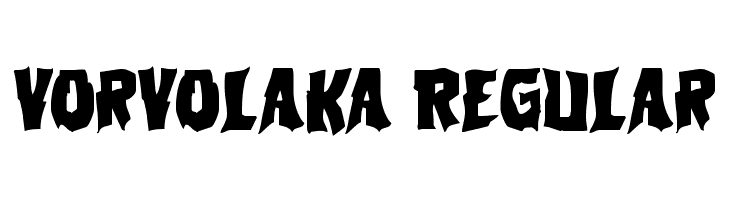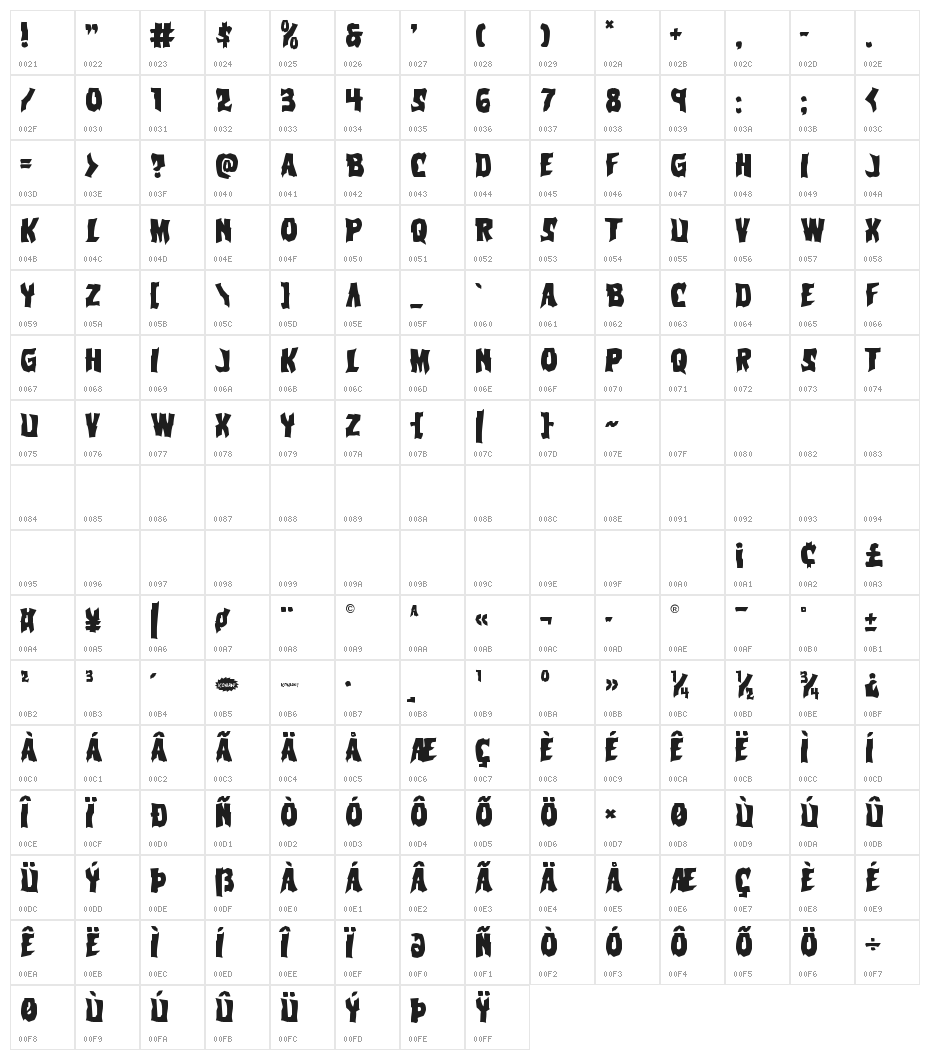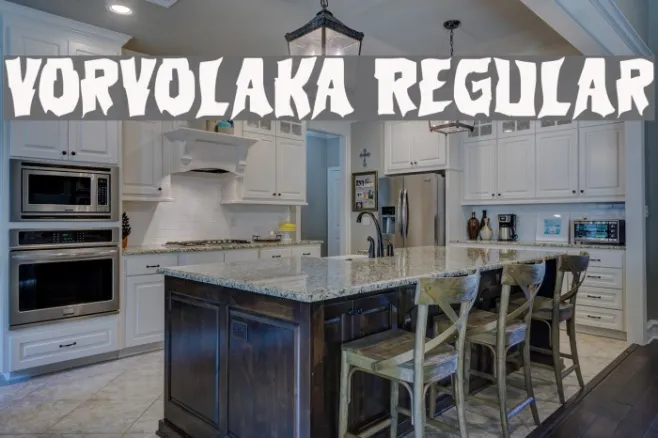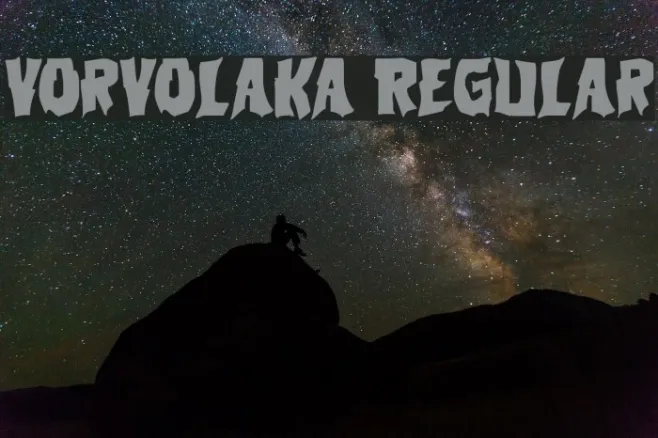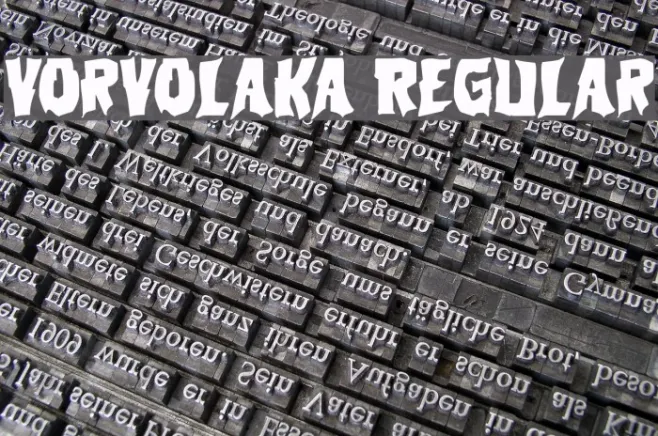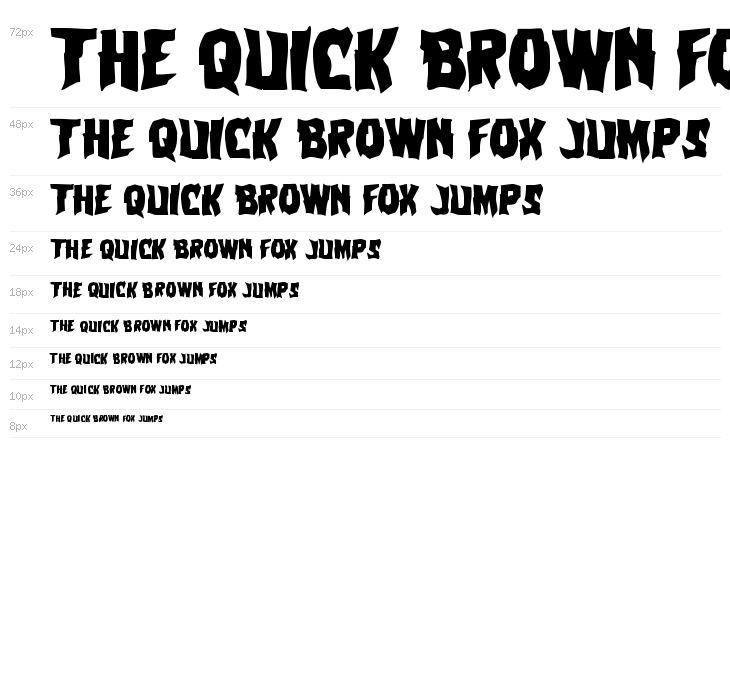
Vorvolaka Regular Font
Vorvolaka Regular Description
This font features a bold and jagged design, reminiscent of horror or gothic themes. The characters have a rough, uneven edge that gives them a hand-carved appearance, adding to their dramatic and intense style. The uppercase letters are particularly striking, with exaggerated angles and sharp points. The numbers and special characters maintain this edgy aesthetic, ensuring consistency across all glyphs. This font is perfect for projects that require a strong, eye-catching typeface with a dark or mysterious vibe.
| Overall Style | Gothic, Horror |
| Use Case | Headlines, Posters, Logos |
| Proposed Projects | Ideal for horror movie posters, Halloween event flyers, gothic-themed merchandise, and video game titles. |